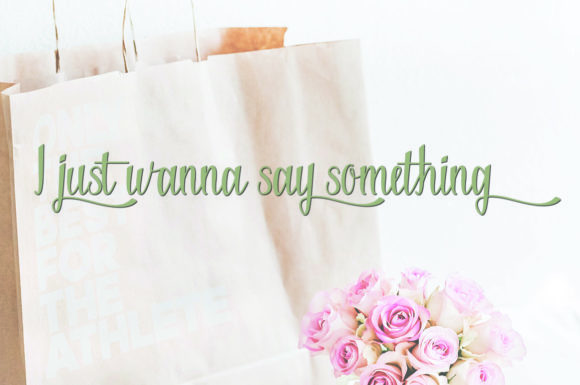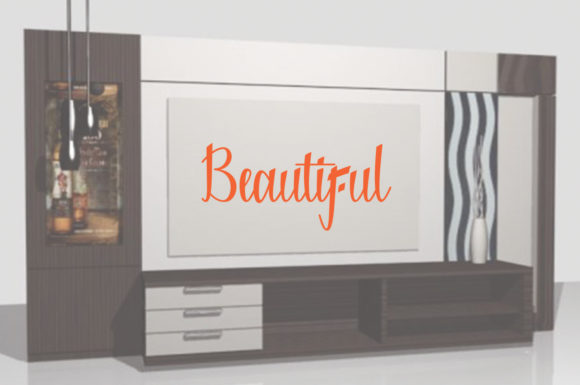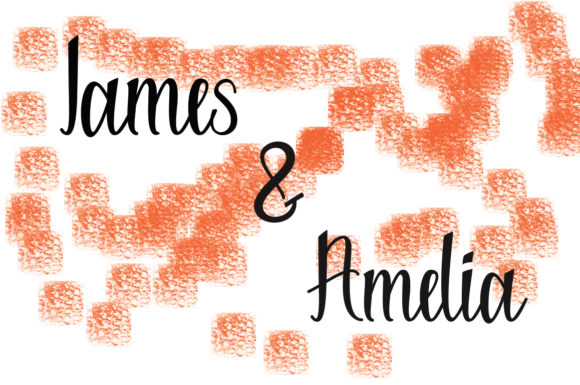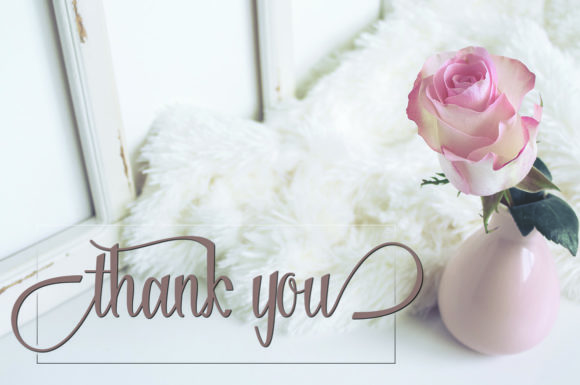
Hamlletto Font: Elevate Your Design with Elegance and Authenticity
In the world of typography, fonts play a crucial role in bringing a design project to life. Among the numerous fonts available, Hamlletto stands out as a unique and captivating script font that can effortlessly transform any design into a stunning masterpiece. Hamlletto is an elegant and light script font with an authentic vibe, making it an ideal choice for designers and crafters looking to add a touch of sophistication to their work.
The Characteristics of Hamlletto Font
Hamlletto font is characterized by its elegant and flowing script style, which exudes a sense of refinement and luxury. Its light weight ensures that it remains legible even at smaller font sizes, making it versatile for various design applications. The authentic vibe of Hamlletto is rooted in its classic script style, which is reminiscent of traditional calligraphy. This font is perfect for designers who want to add a touch of vintage charm to their designs without compromising on modernity.
Why Choose Hamlletto Font?
So, what makes Hamlletto font a standout choice for designers and crafters? Here are a few reasons:
- Elegance and Sophistication: Hamlletto’s elegant script style adds a touch of sophistication to any design project, making it perfect for luxury brands, wedding designs, and high-end product packaging.
- Authentic Vibe: The font’s authentic vibe gives it a unique character that sets it apart from other script fonts. It’s perfect for designers who want to create a sense of nostalgia or vintage charm in their designs.
- Versatility: Hamlletto is a versatile font that can be used for a wide range of design projects, from branding and advertising to packaging and digital media.
- Legibility: Despite its elegant and light weight, Hamlletto remains highly legible, making it suitable for use in various design applications, including body text and headlines.
How to Use Hamlletto Font in Your Design Projects
Using Hamlletto font in your design projects is easy and straightforward. Here are a few tips to get you started:
- Pair it with Bold Fonts: Pair Hamlletto with bold fonts to create a striking contrast that adds visual interest to your design.
- Use it for Headlines and Titles: Hamlletto is perfect for use in headlines and titles, where its elegant script style can add a touch of sophistication and luxury.
- Experiment with Colors: Hamlletto looks great in a variety of colors, from metallic gold and silver to rich jewel tones. Experiment with different colors to find the perfect fit for your design.
Design Inspiration with Hamlletto Font
To get a better sense of how Hamlletto font can be used in design projects, let’s take a look at some inspiring examples:
- Wedding Designs: Hamlletto is a popular choice for wedding designs, including invitations, programs, and place cards. Its elegant script style adds a touch of romance and sophistication to any wedding design.
- Luxury Branding: Hamlletto is perfect for luxury brands looking to add a touch of elegance and sophistication to their branding. It’s ideal for use in logos, packaging, and advertising.
- Digital Media: Hamlletto can be used in digital media, including social media graphics, blog posts, and email marketing campaigns. Its legibility and elegance make it a great choice for digital designs.
In conclusion, Hamlletto font is an elegant and light script font with an authentic vibe that can effortlessly transform any design project into a standout masterpiece. Its versatility, legibility, and sophistication make it a popular choice among designers and crafters. Whether you’re working on a luxury brand, wedding design, or digital media project, Hamlletto is a great choice for adding a touch of elegance and authenticity to your design.